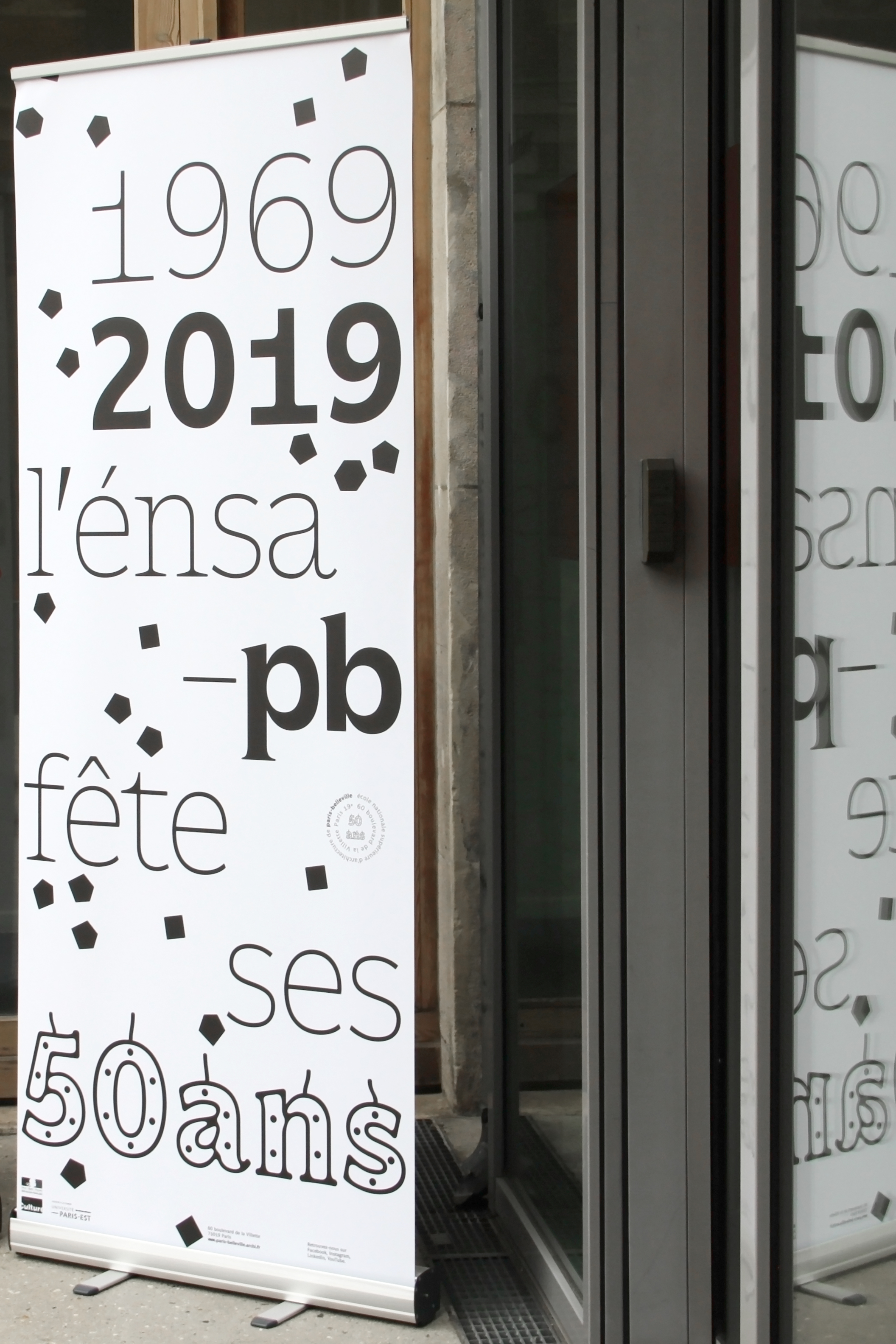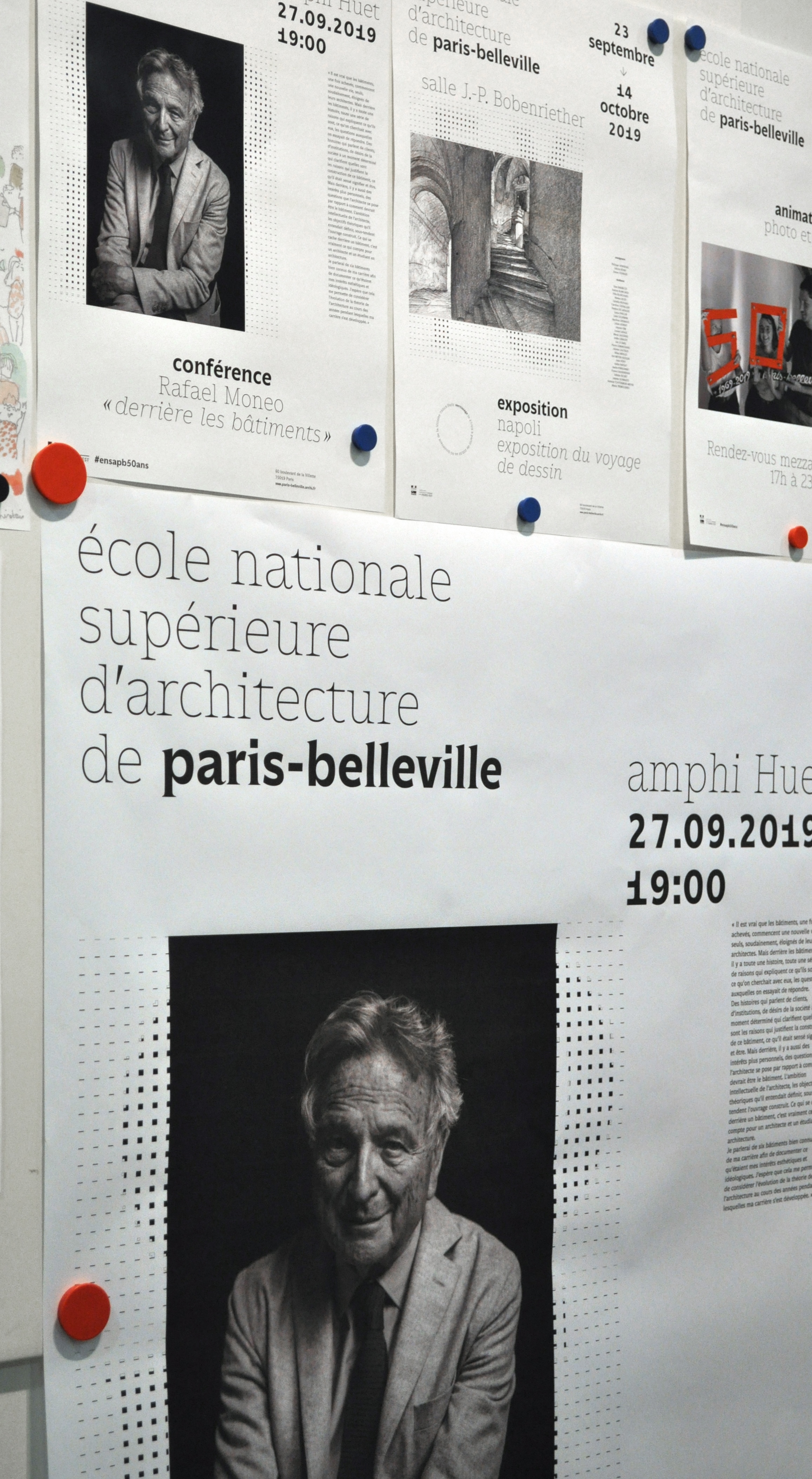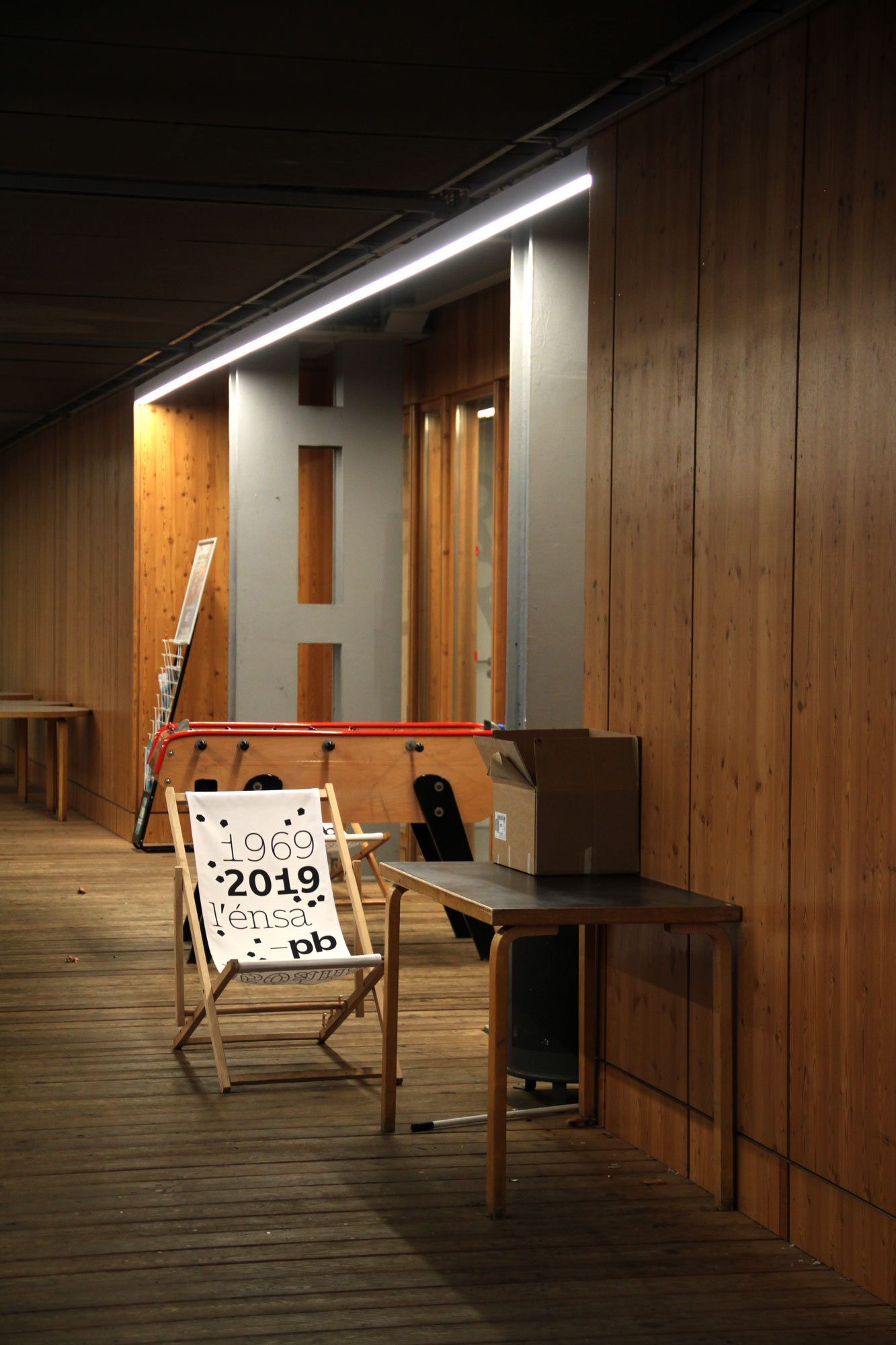
Énsa-PB
Julia Joffre, Camille Prandi & Yoann Minet
Paris, France
2019
The Énsa-PB is already well-known, and its fame goes beyond the world of specialists and architects, reaching the general public. The need for a new identity was therefore not fueled by any lack of notoriety, but by a lack of practicality and functionality for the users of the previous system, and of consistency as a whole. After a strategic analysis, we built our proposal around one core idea: to put back the human at the heart of the construction.
The 8 -style custom type family (Thin, Light, Regular and Bold, all with matching italics) is the cornerstone of the identity. This typeface draws inspiration from the neo-grotesque sans serif typefaces and their constructed design, as well as from the seriffed, humanist genre. As a way to draw a link between construction and human nature, the typeface is a kind of cross-breeding between these two archetypical styles.
From a completely revamped course diagram stems a vocabulary of shapes which are used throughout the communication (and even echo some architectural details from the actual building). Typographic units form letters, numbers and grids, like an urban master plan. The identity, which is in black and white only and constructed on a rigid grid system, can be adapted on a large number of items without losing its cohesive look. Finally, for the 50-year anniversary, we added a couple of graphic elements to mark the events of this special year, playfully indulging in literal symbols of partying such as candles and confettis.